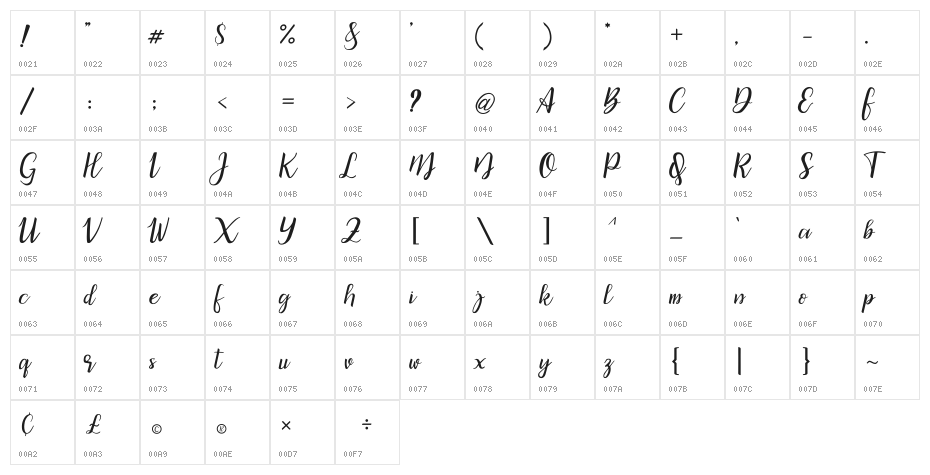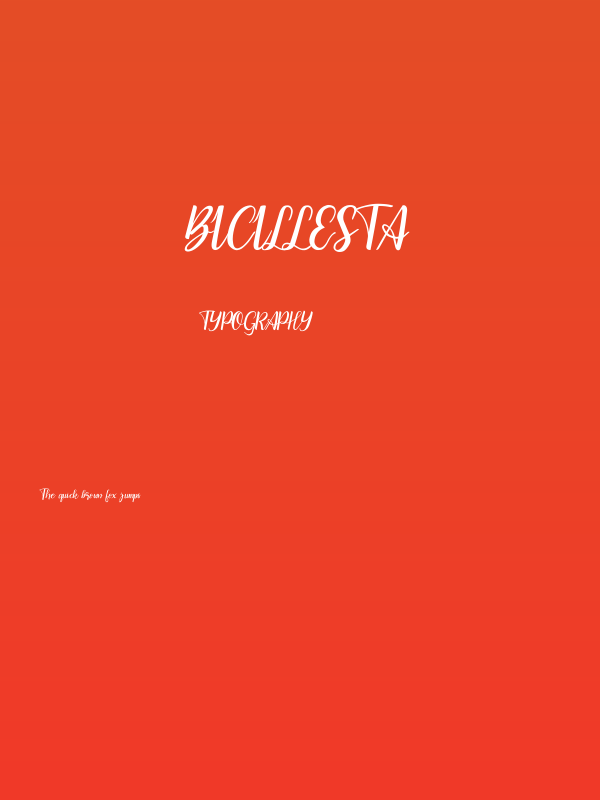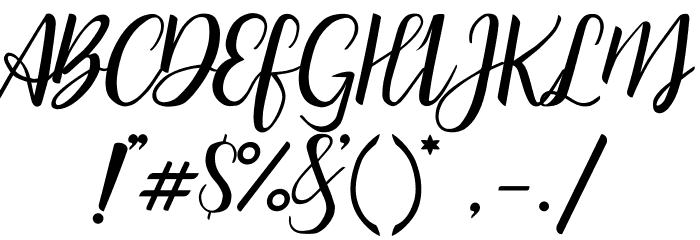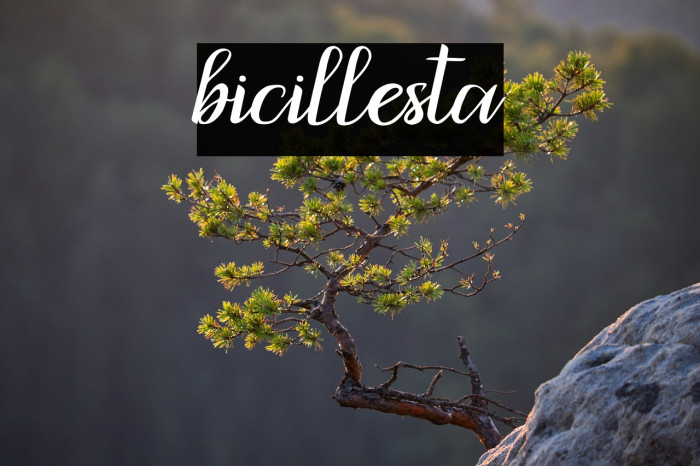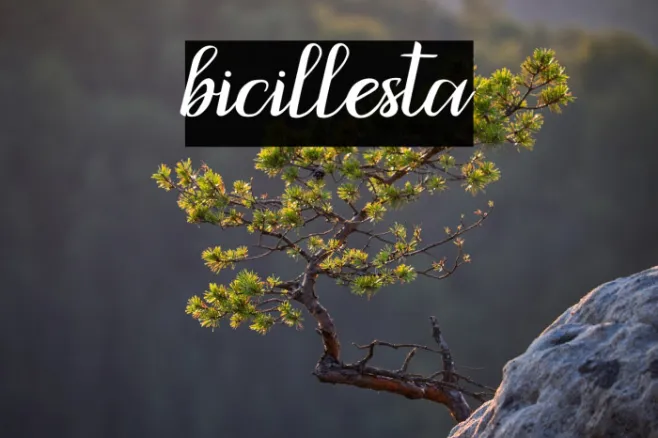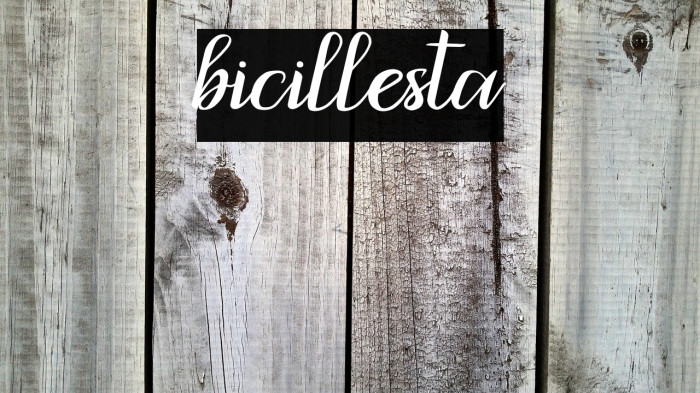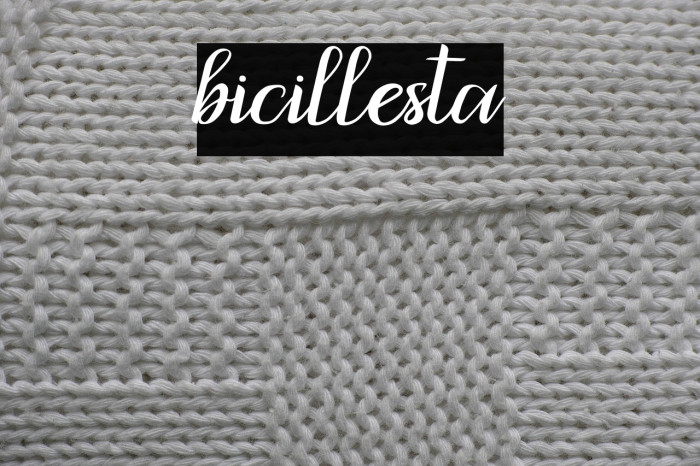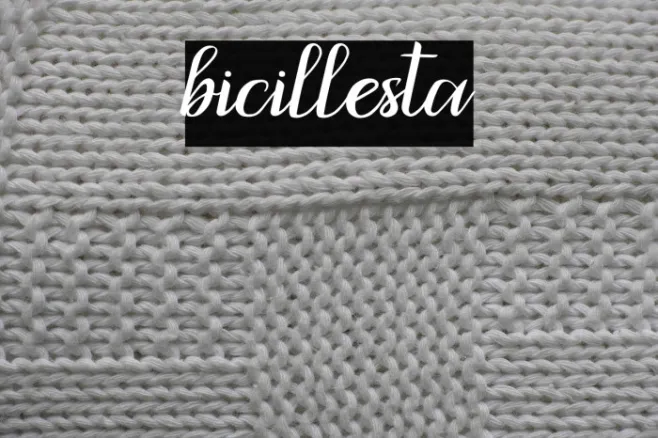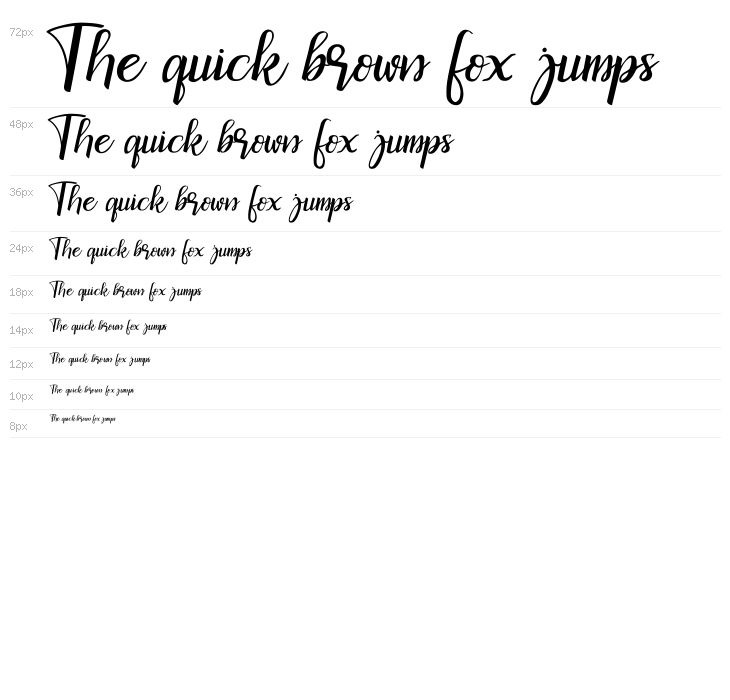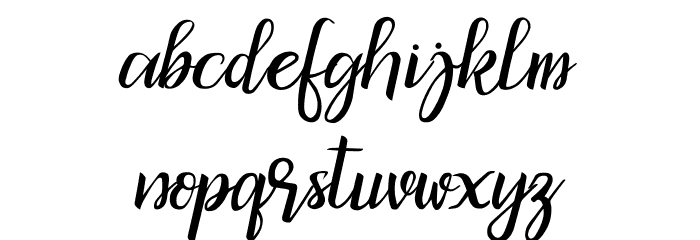
bicillesta Font
bicillesta Description
This font features an elegant and flowing script style, characterized by its smooth, cursive strokes and graceful loops. The uppercase letters are bold and prominent, with a slight slant that adds a dynamic feel. The lowercase letters maintain a consistent flow, enhancing readability while preserving the artistic flair. The numerals and special characters are designed to complement the overall aesthetic, ensuring a cohesive look across all text. This font exudes a sense of sophistication and creativity, making it ideal for projects that require a touch of elegance.
| Proposed Projects | Ideal for wedding invitations, branding, greeting cards, and elegant logos. |